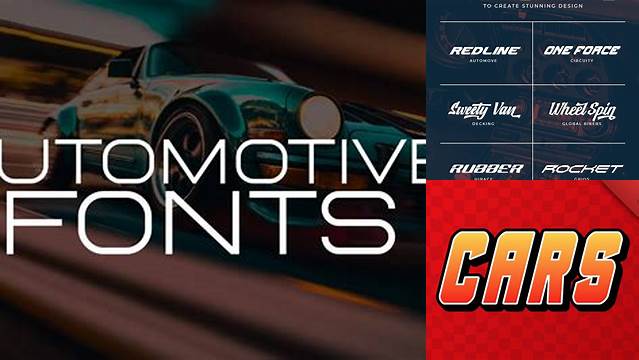
Car Edit Fonts: The Coolest Typography For Your Rides
Are you looking to give your car edits that extra oomph? Choosing the right font can make all the difference! The typography you select significantly impacts the overall aesthetic and message conveyed by your visual creations. Let's dive into some cool fonts that can seriously level up your car editing game, making your designs pop and grab attention.
Why Fonts Matter in Car Edits
Fonts are more than just letters; they're a crucial design element that communicates personality and style. In the context of car edits, where visuals reign supreme, the right font can amplify the message and complement the car's features. Think about it – a sleek, modern sports car would look out of place with a whimsical, childish font, right? The font needs to match the vibe!
Choosing the right font involves considering several factors. Readability is key; if your audience can't easily read your text, the message is lost. Style is another important aspect. Do you want something bold and aggressive, or clean and minimalist? The font should reflect the car's character and the overall tone of your edit. Consistency is also important. Using too many different fonts can make your design look cluttered and unprofessional. Stick to a maximum of two or three fonts and use them consistently throughout your project.
Ultimately, the goal is to select fonts that enhance your car edits, making them visually appealing and effective in conveying your intended message. Whether you're creating promotional materials, social media posts, or simply showcasing your love for cars, the right font can make all the difference.
Top Font Styles for Car Edits
Alright, let's get into the fun part – exploring some top font styles that work wonders for car edits. We'll cover various categories, from sporty and aggressive to modern and sleek, ensuring there's something for every type of car enthusiast.
1. Bold and Sporty Fonts
When you want to convey power, speed, and adrenaline, bold and sporty fonts are your best bet. These fonts often feature strong lines, sharp angles, and a sense of forward motion, perfectly complementing the dynamic nature of high-performance vehicles. They're ideal for showcasing sports cars, racing cars, and anything that screams speed.
Consider fonts like Bebas Neue, a sans-serif font known for its clean lines and tall, narrow characters. It's highly readable and conveys a sense of modernity and speed. Impact is another classic choice, with its heavy weight and condensed form, making it perfect for headlines and titles. For something with a bit more personality, check out Montserrat, a versatile font family with various weights and styles that can be adapted to suit different car types.
When using bold and sporty fonts, remember to use them sparingly. Too much boldness can overwhelm the design. Use them for key elements like the car's name, tagline, or a call to action. Pair them with a more subtle font for body text to maintain readability and balance.
2. Modern and Sleek Fonts
For a more refined and sophisticated look, modern and sleek fonts are the way to go. These fonts emphasize clean lines, minimalist designs, and a sense of elegance, making them perfect for showcasing luxury cars, electric vehicles, and anything that embodies cutting-edge technology.
Helvetica is a timeless classic, known for its neutrality and readability. It's a versatile font that can be used in a variety of contexts, from headlines to body text. Futura is another excellent choice, with its geometric shapes and clean lines, conveying a sense of modernity and sophistication. For something a bit more unique, consider Raleway, a sans-serif font with a slightly rounded appearance, giving it a friendly yet modern feel.
When using modern and sleek fonts, pay attention to kerning and spacing. These fonts often have delicate letterforms, so proper spacing is crucial for readability and visual appeal. Use them in combination with high-quality images and clean layouts to create a sophisticated and professional look.
3. Retro and Vintage Fonts
If you're aiming for a nostalgic vibe, retro and vintage fonts can add a touch of classic charm to your car edits. These fonts often feature unique serifs, decorative elements, and a sense of history, making them perfect for showcasing classic cars, vintage vehicles, and anything that evokes a sense of nostalgia.
Bangers is a bold and playful font that captures the spirit of vintage comic books and posters. Rockwell is a slab-serif font with a strong and confident appearance, perfect for headlines and titles. For something with a more elegant feel, consider Playfair Display, a serif font with high contrast and delicate letterforms, evoking a sense of classic sophistication.
When using retro and vintage fonts, consider the overall context of your design. These fonts can be quite distinctive, so it's important to use them sparingly and pair them with appropriate visuals. Think vintage color palettes, distressed textures, and classic car models to create a cohesive and authentic look.
- Experiment and have fun: Don't be afraid to experiment with different fonts and combinations. The best way to find the perfect font for your car edits is to try out different options and see what works best.
By following these tips, you can use fonts effectively to enhance your car edits and create visually stunning designs that capture the attention of your audience. So go ahead, explore the world of fonts and let your creativity run wild!